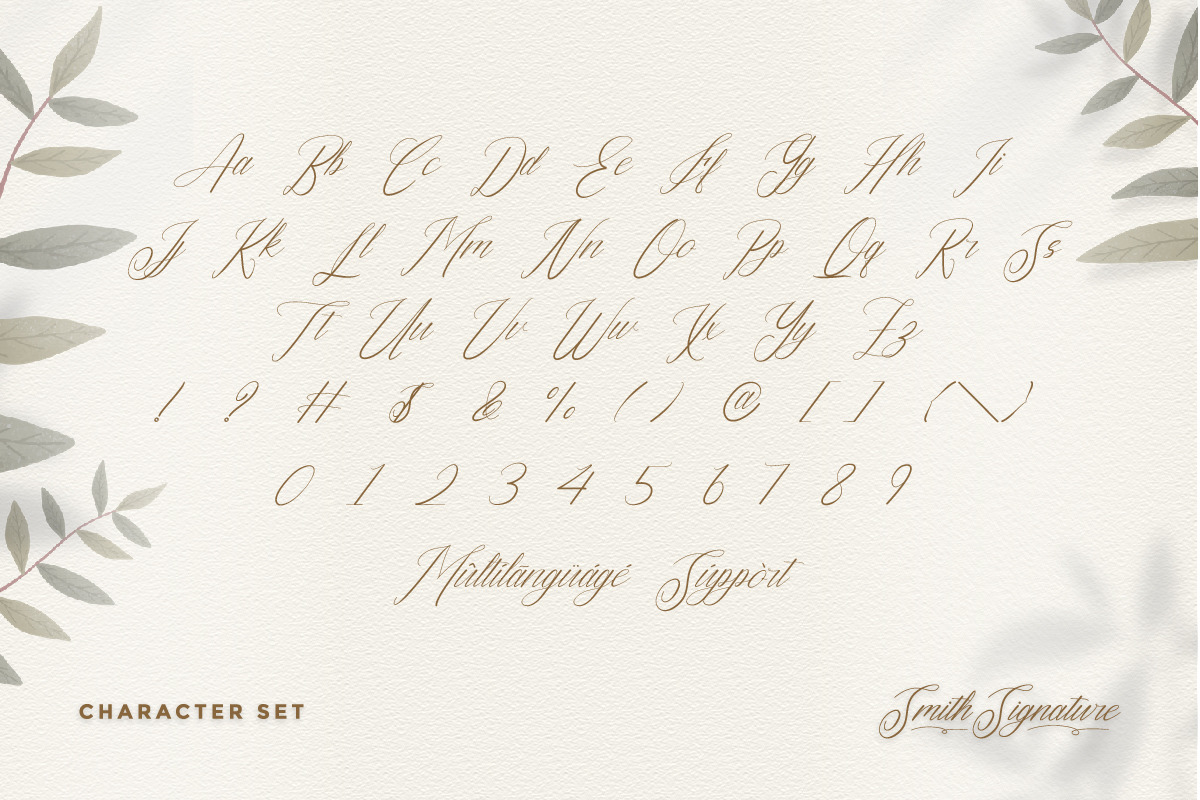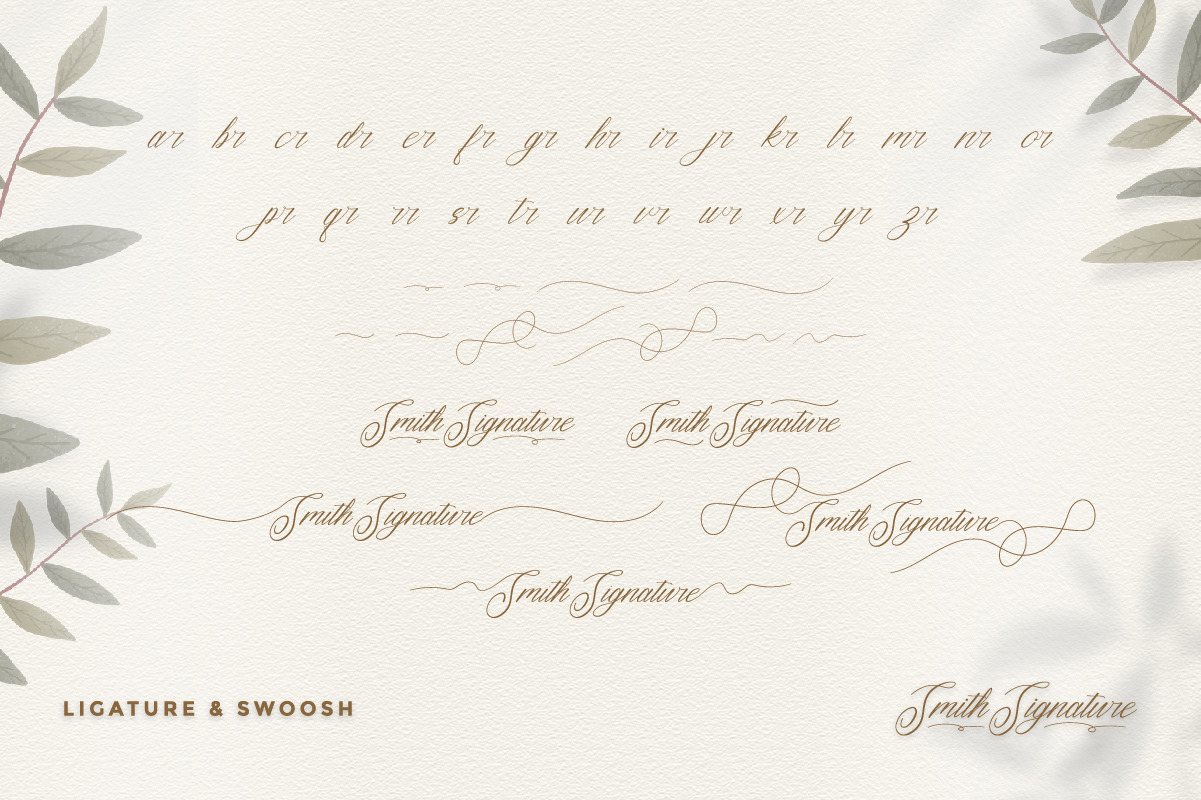
Smith Signature Font
Smith Signature is a script font in handwriting style. Smith Signature great for weddings, promotion, events, branding, advertising, magazine, shopping, signage, invitation, stationery, social media posts, product packaging, product designs, label, photography, watermark or and any projects that need handwriting style.